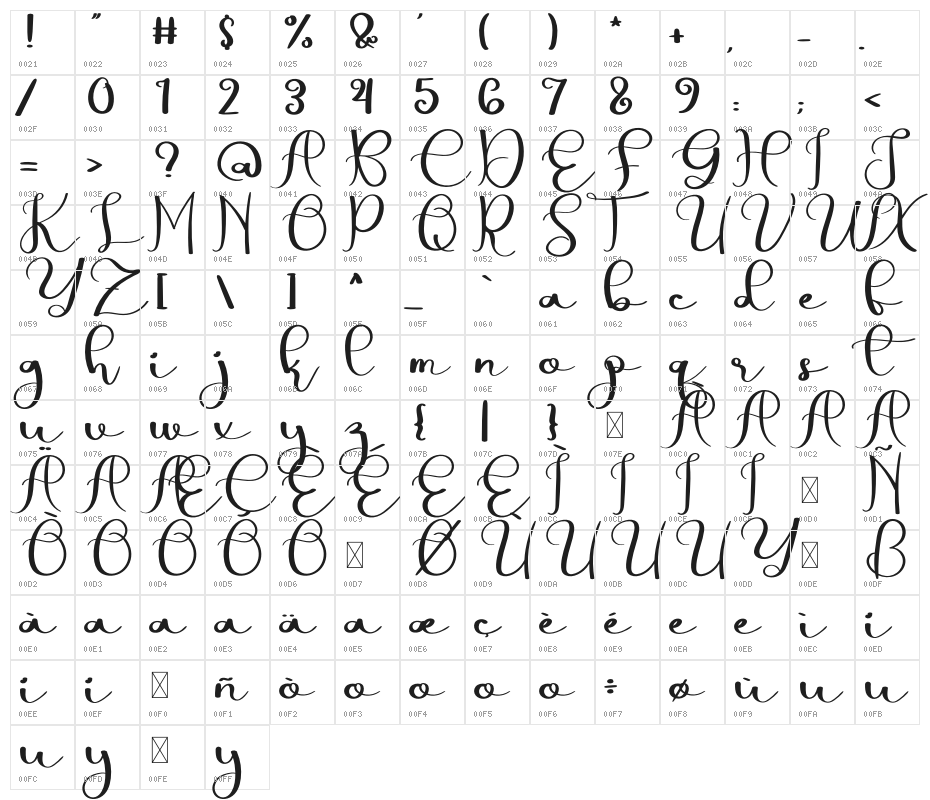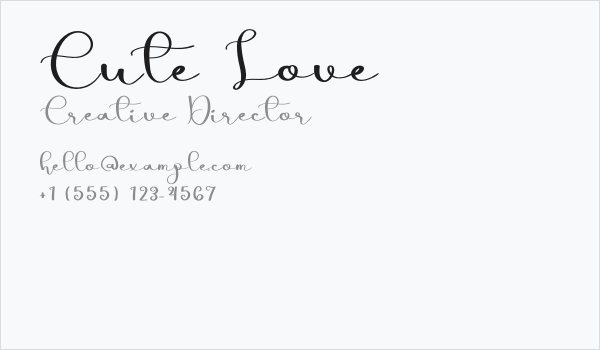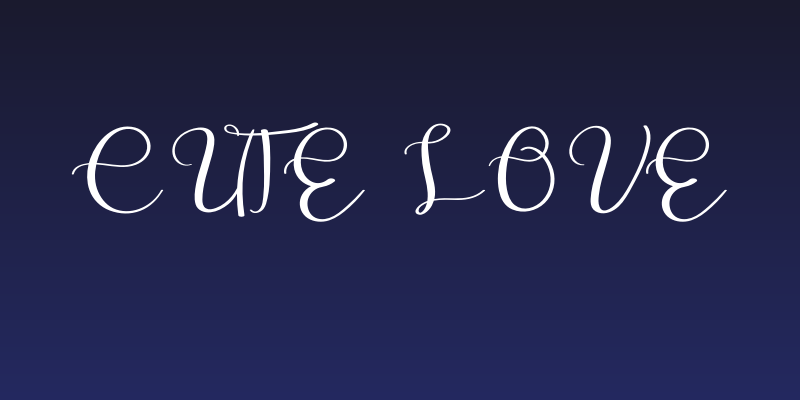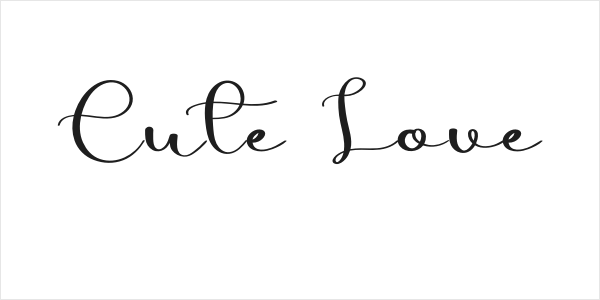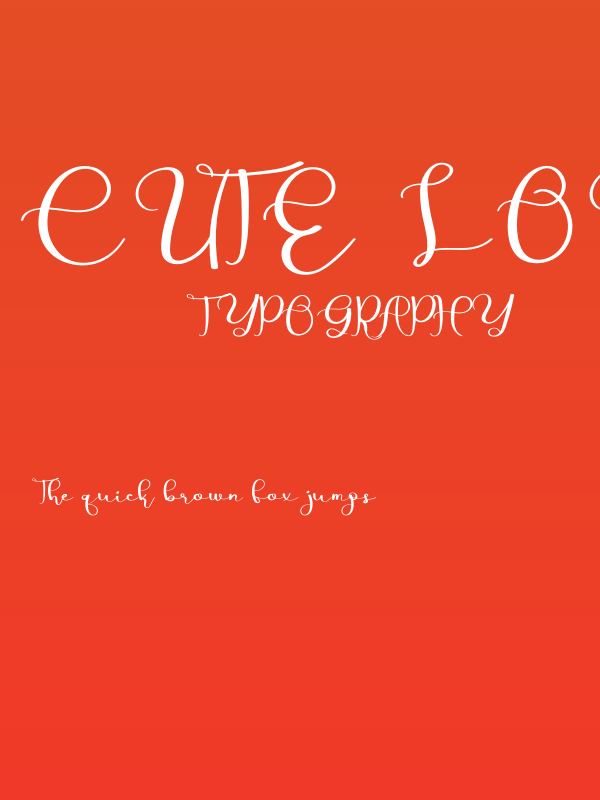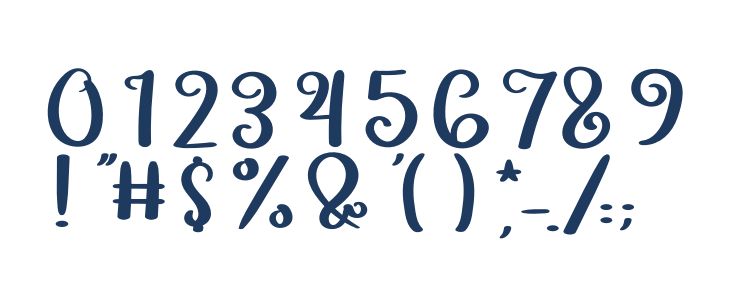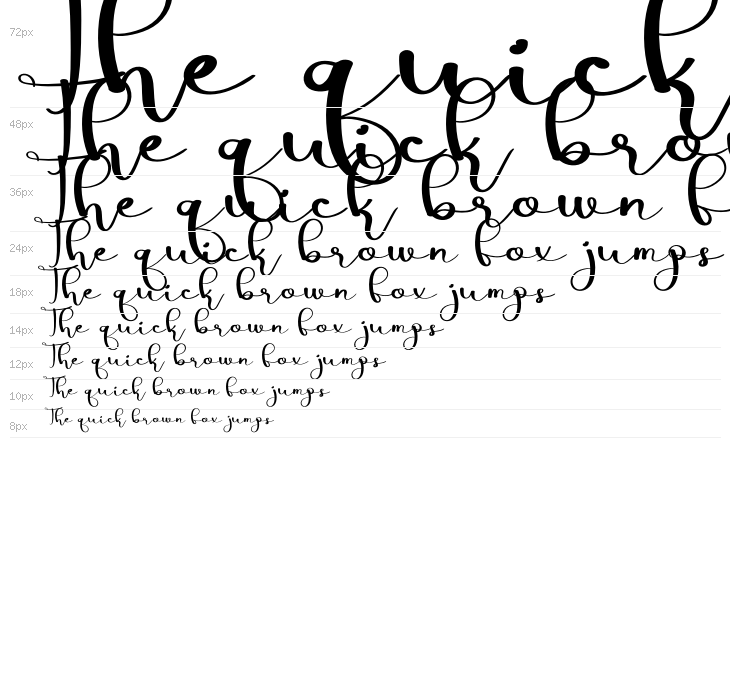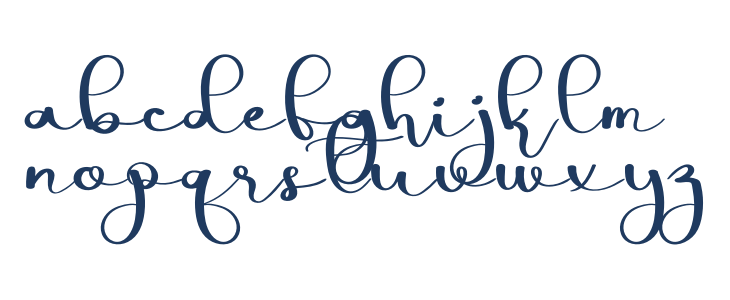
Cute Love Font
Cute Love Description
This font exudes a playful and romantic charm, characterized by its flowing script style and elegant curves. The uppercase letters are intricately designed with loops and swirls, giving them a whimsical feel. The lowercase letters maintain a consistent flow, enhancing readability while retaining a decorative touch. Numbers and special characters are crafted with the same attention to detail, ensuring a cohesive look across all elements. The font's overall appearance is both stylish and approachable, making it suitable for a variety of creative projects.
| Proposed Projects | Ideal for wedding invitations, greeting cards, branding projects, and social media graphics. |